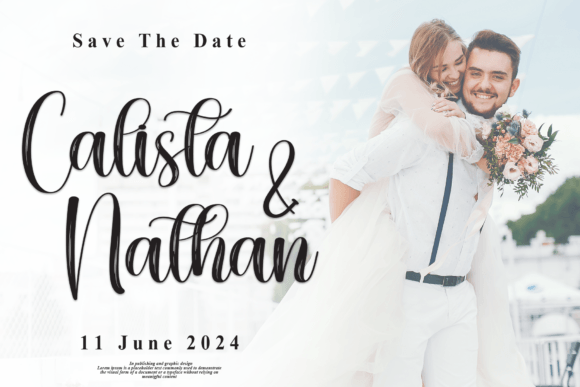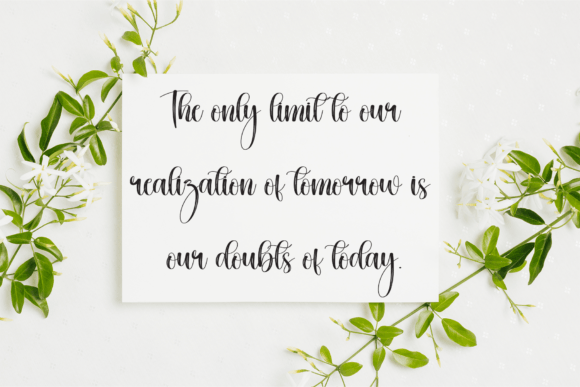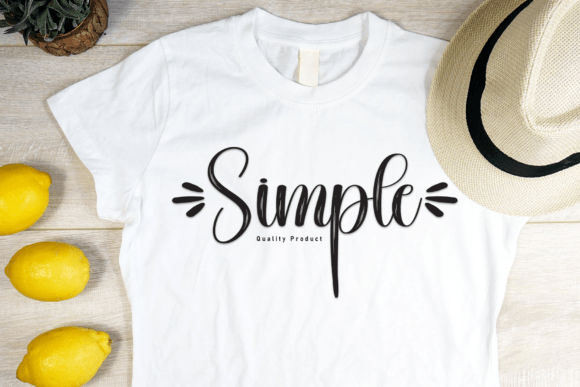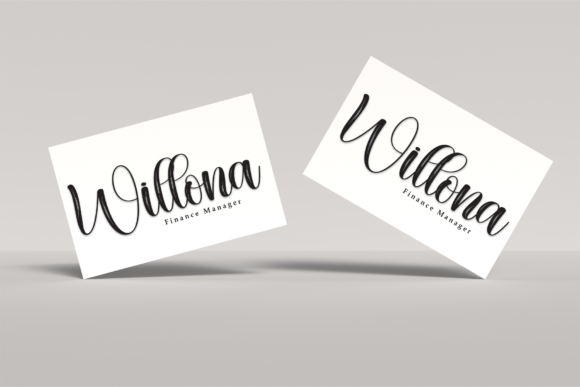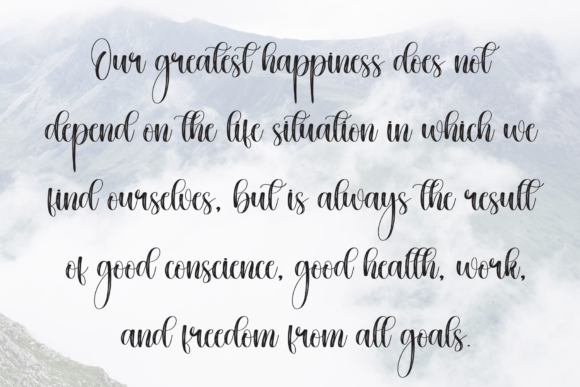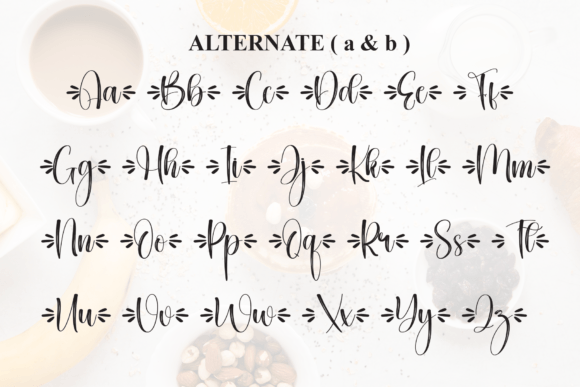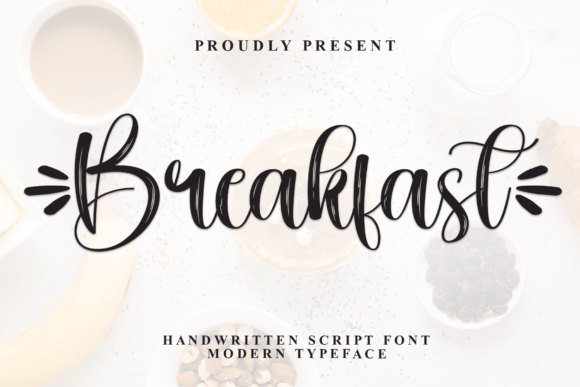
The Breakfast Font: A Bold and Beautiful Addition to Your Design Arsenal
I’ll never forget the design project that led me to discover the Breakfast font. I was working on a branding project for a trendy new café, and I was struggling to find the perfect font to capture their playful yet sophisticated vibe. That’s when I stumbled upon Breakfast, a gorgeous and bold handwritten font that instantly caught my eye. In this article, I’ll share my experience with Breakfast, including what I love about it, some quirks to be aware of, and practical tips on how to use it in your designs.
So, what makes Breakfast so special? Here are some things I love about this font:
• ✨ Unique and eye-catching: Breakfast is a true showstopper, with its bold and confident lines that add a touch of nostalgia to any design.
• ✅ Highly versatile: Whether you’re designing a logo, headline, or social media graphic, Breakfast adapts seamlessly to different contexts and styles.
• 💫 Easy to read: Despite its bold and playful nature, Breakfast remains surprisingly legible, even at smaller font sizes.
Of course, no font is perfect, and Breakfast has a few quirks to be aware of:
• 🤔 Limited use of lowercase letters: While the uppercase letters are stunning, the lowercase letters are a bit more limited in their design. This might not be a deal-breaker, but it’s something to consider if you need a font with a more extensive range of characters.
• ⚠️ Occasional kerning issues: As with any font, you might encounter some kerning issues, particularly when using certain letter combinations. However, these can usually be easily adjusted in your design software.
The Story Behind Breakfast
While the origins of Breakfast are shrouded in mystery, it’s said that the font was created by a talented type designer who wanted to capture the essence of a classic diner breakfast: bold, playful, and full of personality. The designer spent countless hours perfecting the font, pouring over details like kerning and ligatures to create a truly unique experience.
What is the best use for Breakfast? Breakfast is perfect for headlines, logotypes, and social media graphics where you want to make a bold statement.
Is Breakfast suitable for body text? While Breakfast is legible, it’s not ideal for body text due to its bold nature. Use it for headlines and titles instead.
Is Breakfast available in different weights or styles? Currently, Breakfast is available in a single weight, but the designer may release additional weights or styles in the future.